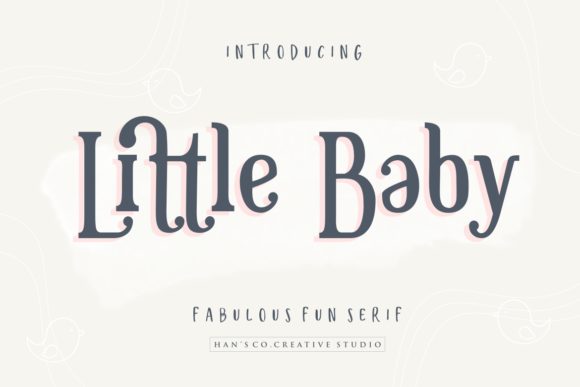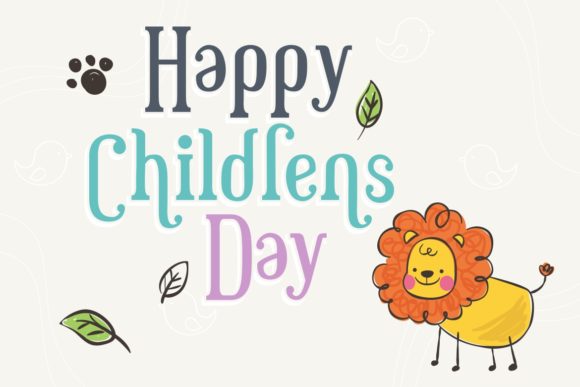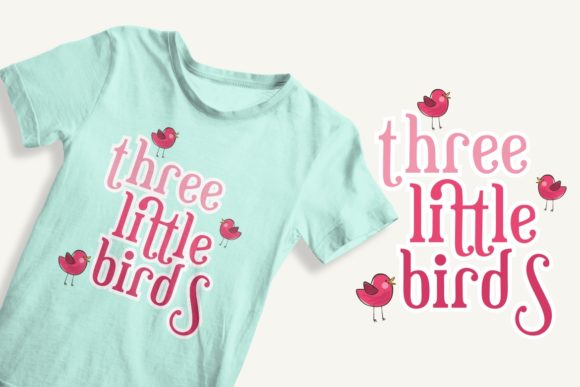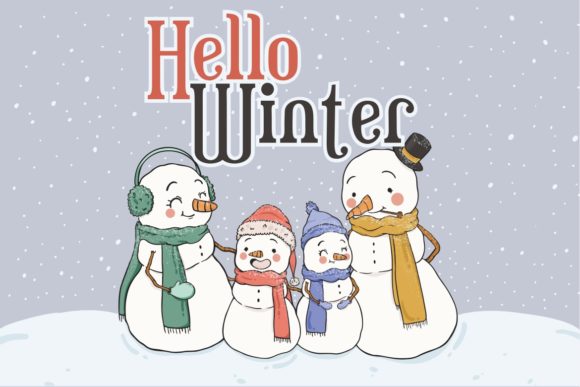
Little Baby Font
About the Little Baby Font
From logos to headlines, the Little Baby Font is the perfect choice for making a lasting impression. Whimsical, charming and undeniably cute: Little Baby is, as the name suggests, the perfect font for making any kid’s or baby-themed project stand out!
Little Baby Font’s playful charm makes it ideal for children’s book illustrations, branding for toys or baby products, and playful posters or invitations. It excels in headlines and short, impactful text segments where its unique character shines. However, its low x-height and decorative elements make it unsuitable for body text or UI elements requiring high readability.
Pairing Little Baby with a clean sans-serif like Open Sans for body copy creates a balanced and effective contrast. For a more sophisticated feel, consider pairing it with a delicate serif font such as Lora. The overall effect complements its friendly and approachable nature.
The font’s core personality is undeniably cheerful and approachable, perfect for projects targeting a young audience or those requiring a lighthearted and whimsical feel.
Little Baby Font Usage Examples
Little Baby Font Example